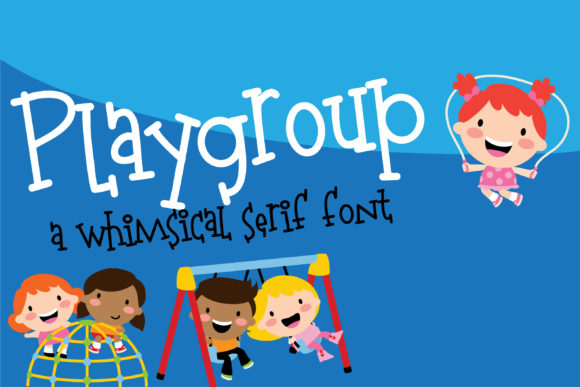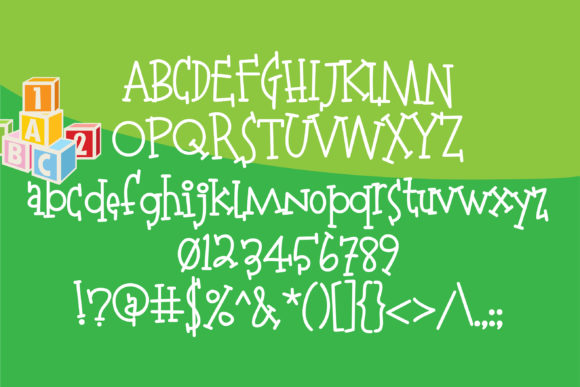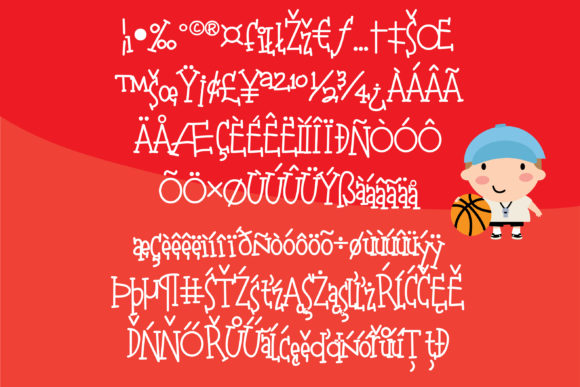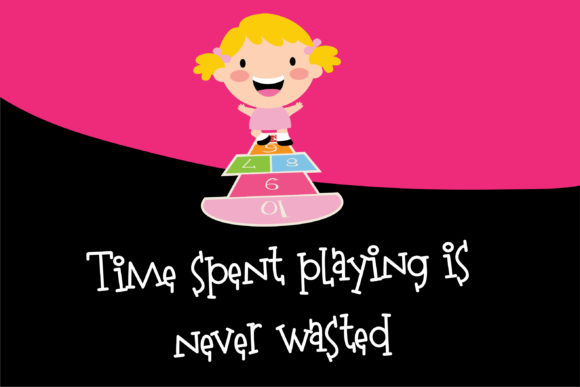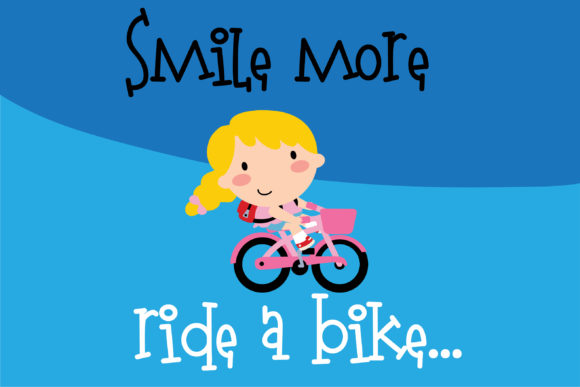
HomeScript FontsPlaygroup Font Script Fonts Playgroup Font FacebookXPinterestWhatsApp Playgroup Font Poster 2 Playgroup Font Poster 3 Playgroup Font Poster 4 Playgroup Font Poster 5 About Playgroup Font This youthful serif font is whimsical and fun, making it an ideal crafting font! DOWNLOAD ON CREATIVE FABRICAThis font is sold and delivered by Creative Fabrica. Font Canyon may earn a commission if you buy through this link. People also explored Darrel Allura Font Christmas Day Font Janetta Silloam Font Antique X Condensed Caterina Font Wildflowers Font Oregon Street Font Qamilla Font Monogram Classy Font 271 0 TagsPlaygroup Font Previous articleMaraschino FontNext articleLady Pink Font LEAVE A REPLY Cancel reply Comment: Please enter your comment! Name:* Please enter your name here Email:* You have entered an incorrect email address! Please enter your email address here Website: Save my name, email, and website in this browser for the next time I comment. Personal Use Free Sunbright Font Personal Use Free Read more about this font Luxima Personal Use Free Read more about this font Single Sleeve Personal Use Free Read more about this font Archipellago Personal Use Free Read more about this font BLOG 5 Fonts That Will Dominate Design Trends in 2026 5 Fonts for 2026 That Will Dominate Design Trends Typography plays a critical role in visual communication, and as we look ahead to 2026, itβs... Top 7 Google Fonts Alternatives for Faster and Privacy-Friendly Web Design (2025) Elegant Wedding Invitation Fonts β Handwritten & Script Fonts Using Fonts in Digital Marketing: Tips to Strengthen Your Brand Identity